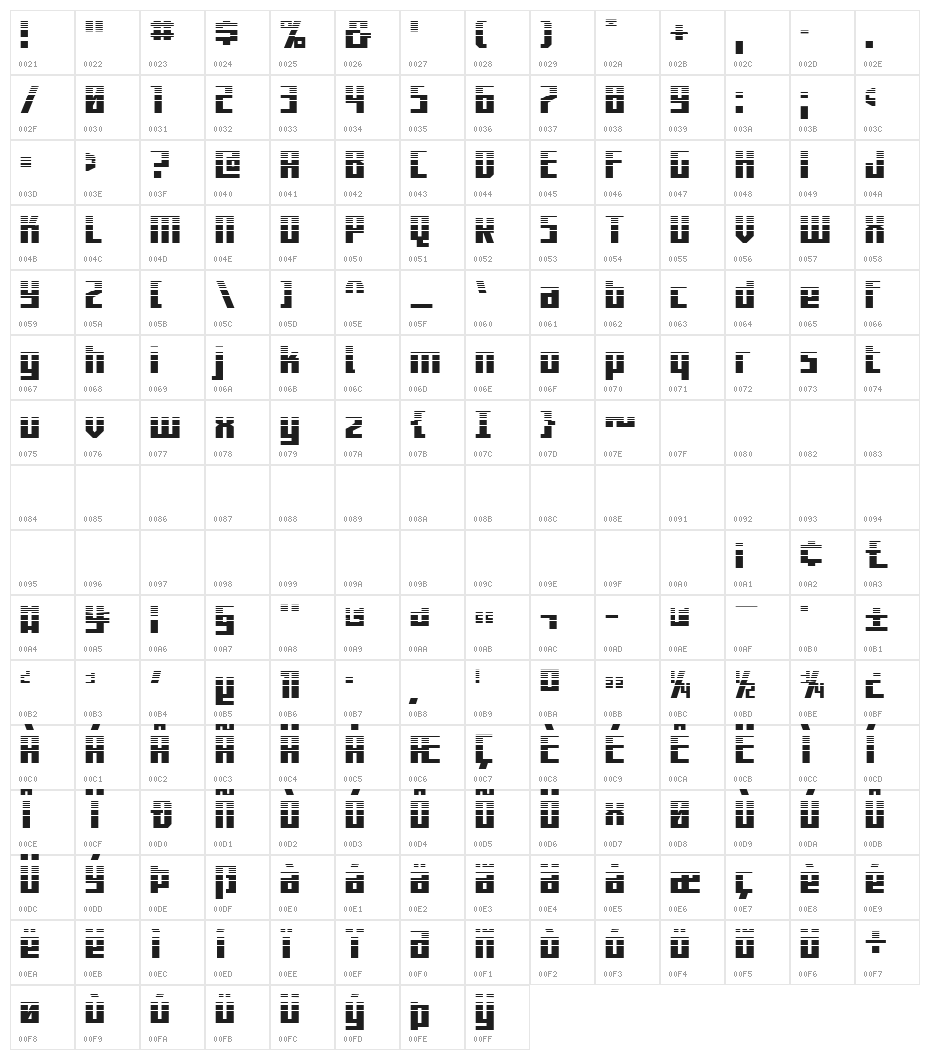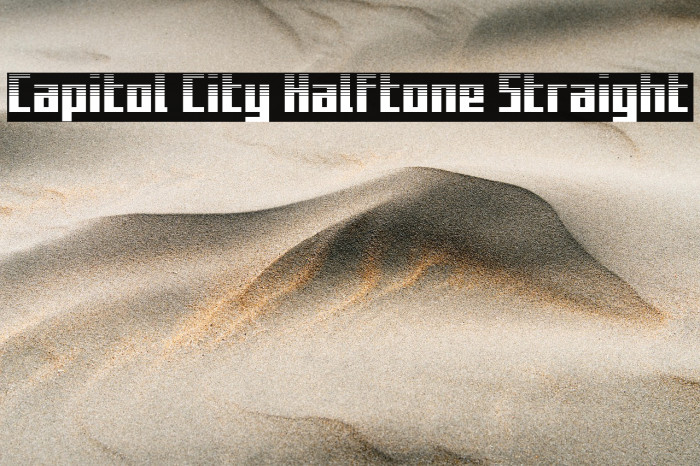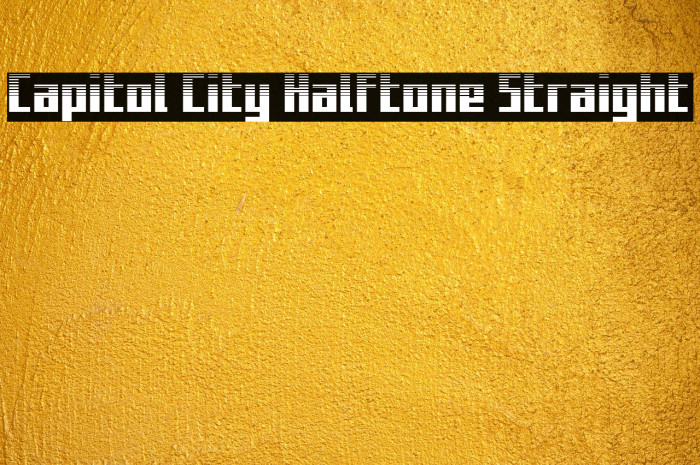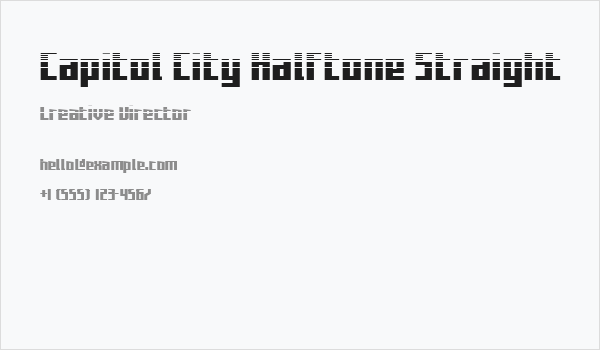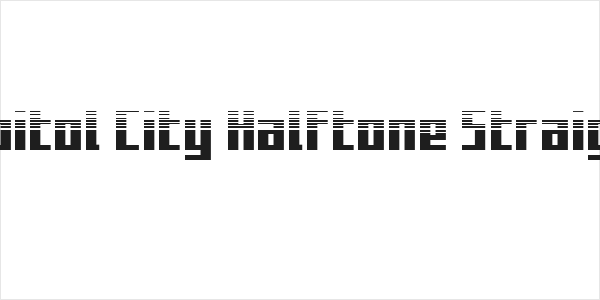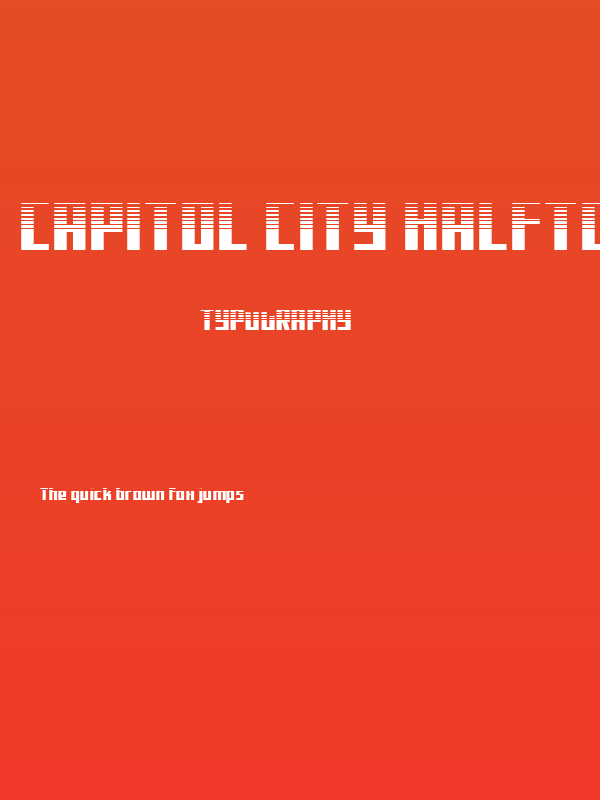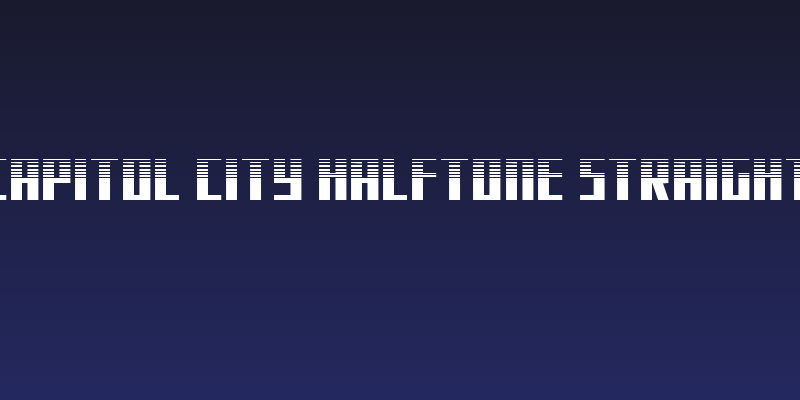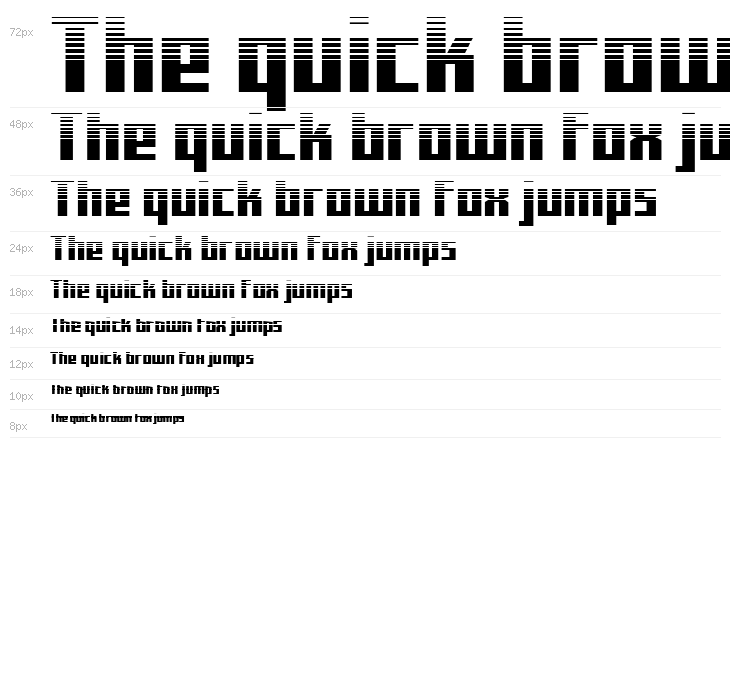
Capitol City Halftone Straight Font
Capitol City Halftone Straight Description
This font features a unique halftone design with a straight, geometric structure. Each character is composed of horizontal lines that create a gradient effect, giving it a modern and digital appearance. The uppercase and lowercase letters maintain a consistent width, contributing to a uniform look. The numbers and special characters follow the same stylistic approach, ensuring cohesion across all elements. This font's bold and striking design makes it ideal for attention-grabbing headlines or artistic projects where a contemporary and edgy feel is desired.
| Proposed Projects | Ideal for digital art, modern posters, tech-themed branding, and eye-catching headlines. |